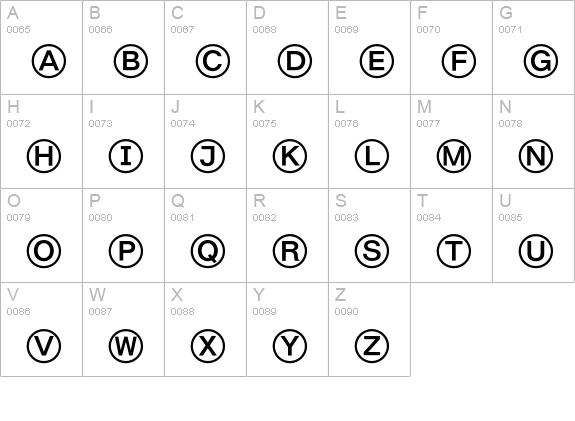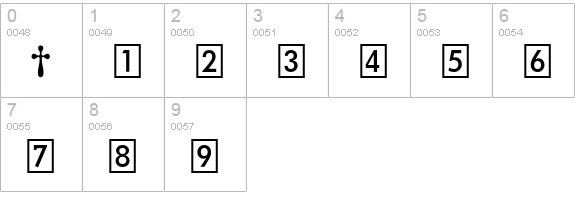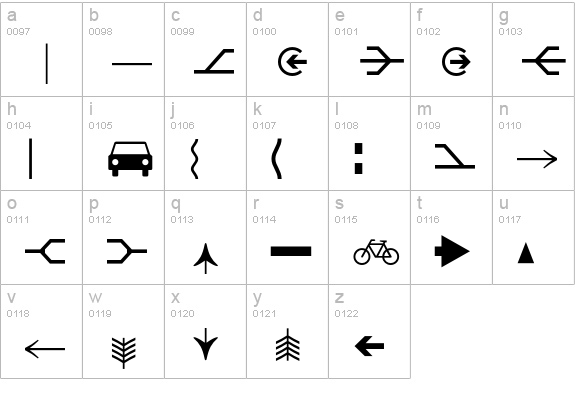
Bundesbahn Pi 3 Font Details
Bundesbahn Pi 3 is a sleek and modern font that exudes sophistication and professionalism. With its clean lines and sharp edges, this typeface is perfect for adding a touch of elegance to any design project. The geometric shapes and precise letterforms of Bundesbahn Pi 3 make it a versatile choice for a wide range of applications, from branding to web design. What sets Bundesbahn Pi 3 apart is its versatility and readability, making it a top choice for both print and digital projects. Whether you're designing a sleek logo or a stylish website, this font is sure to make a lasting impression. And the best part? Bundesbahn Pi 3 is available for free download at FontsMarket.com. So why wait? Elevate your designs with the timeless appeal of Bundesbahn Pi 3 today!